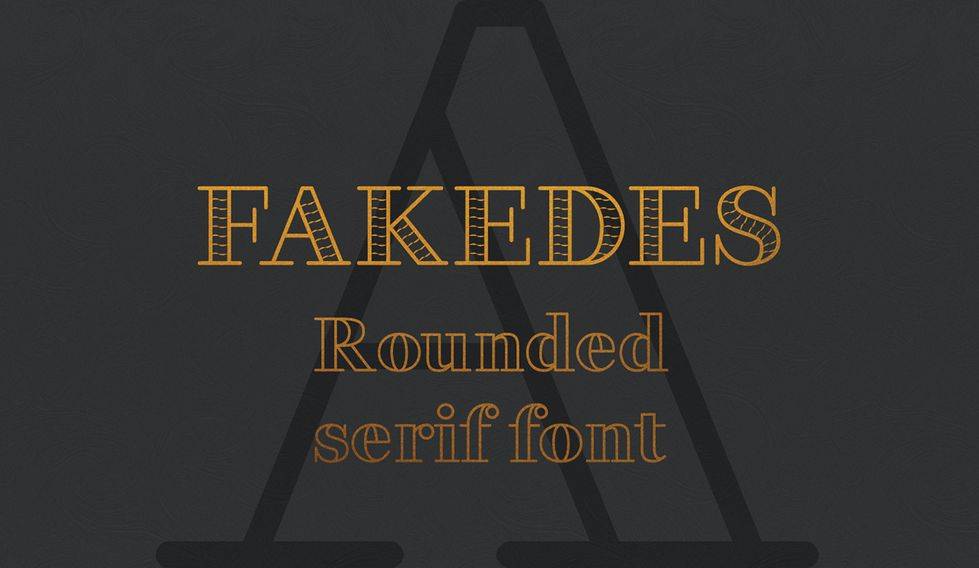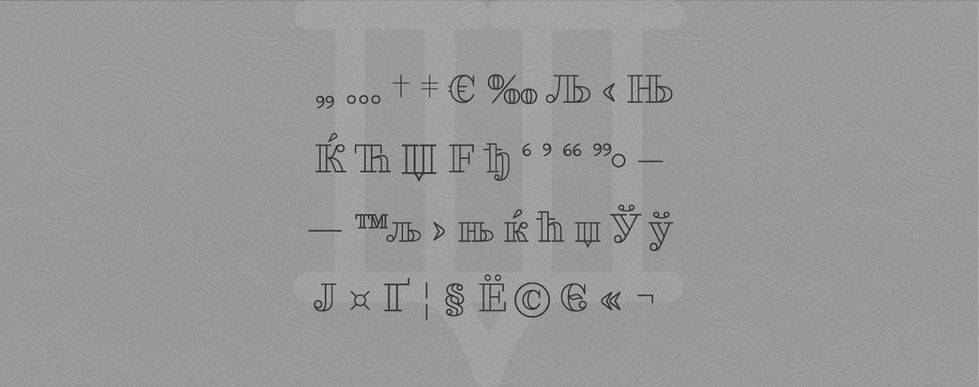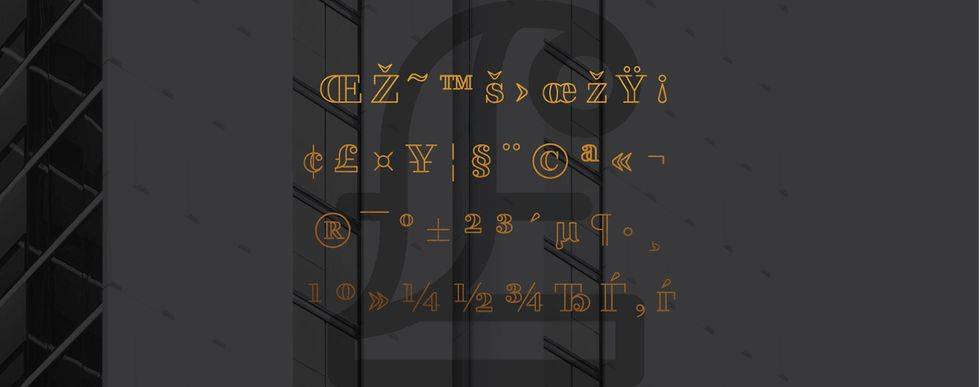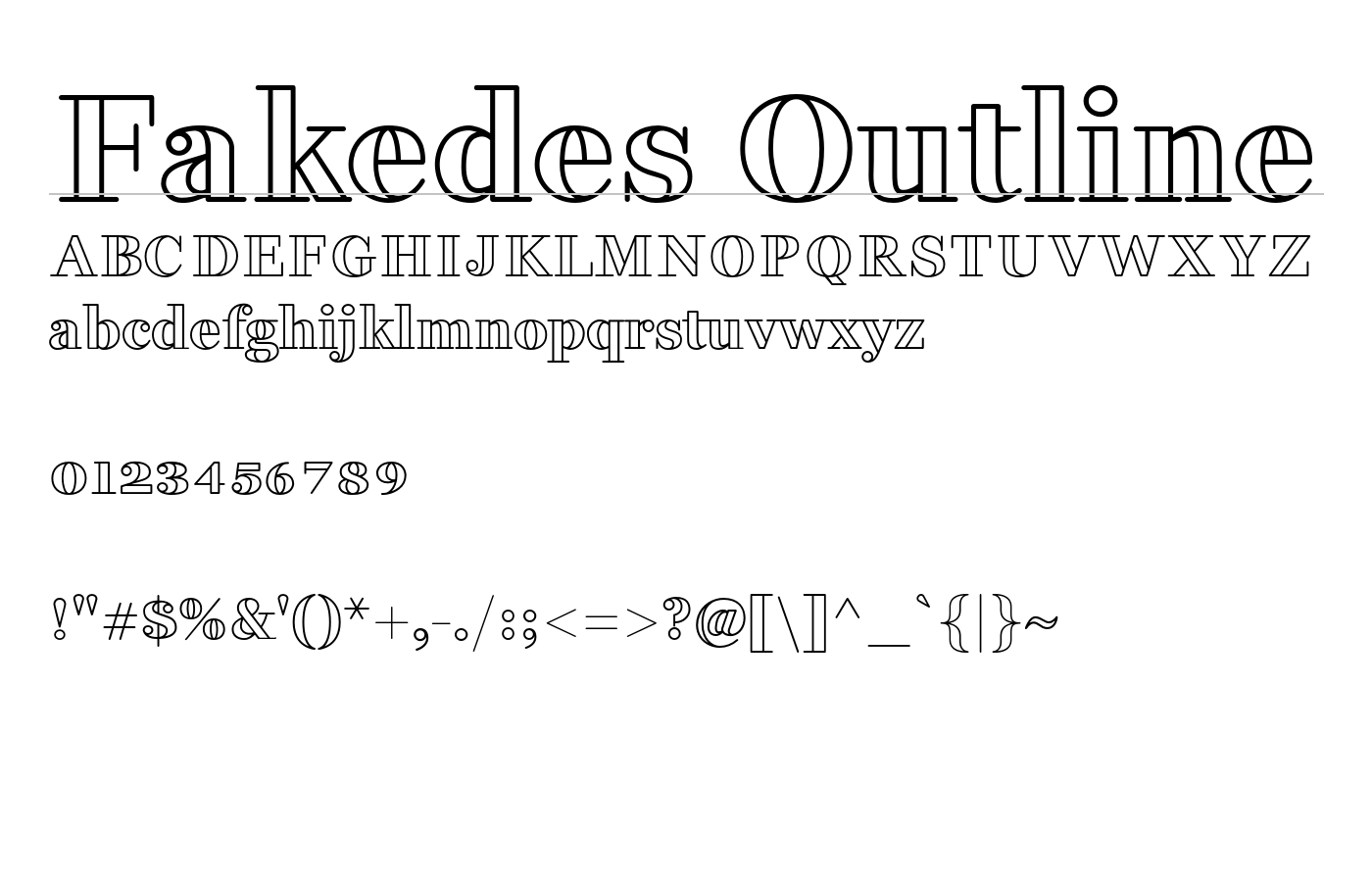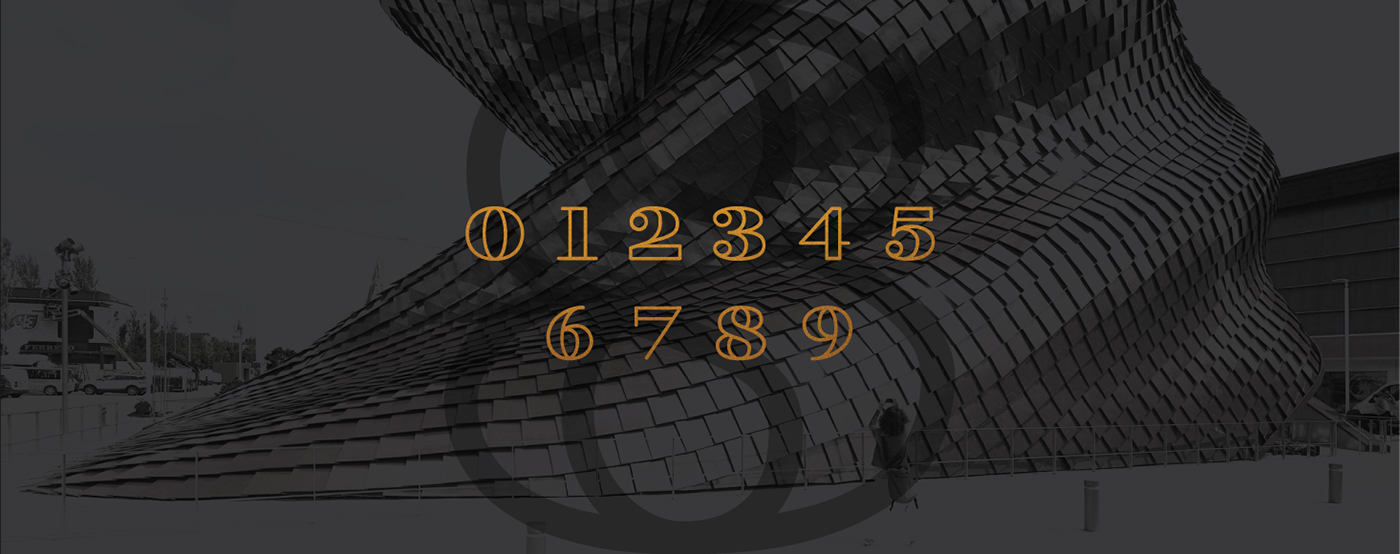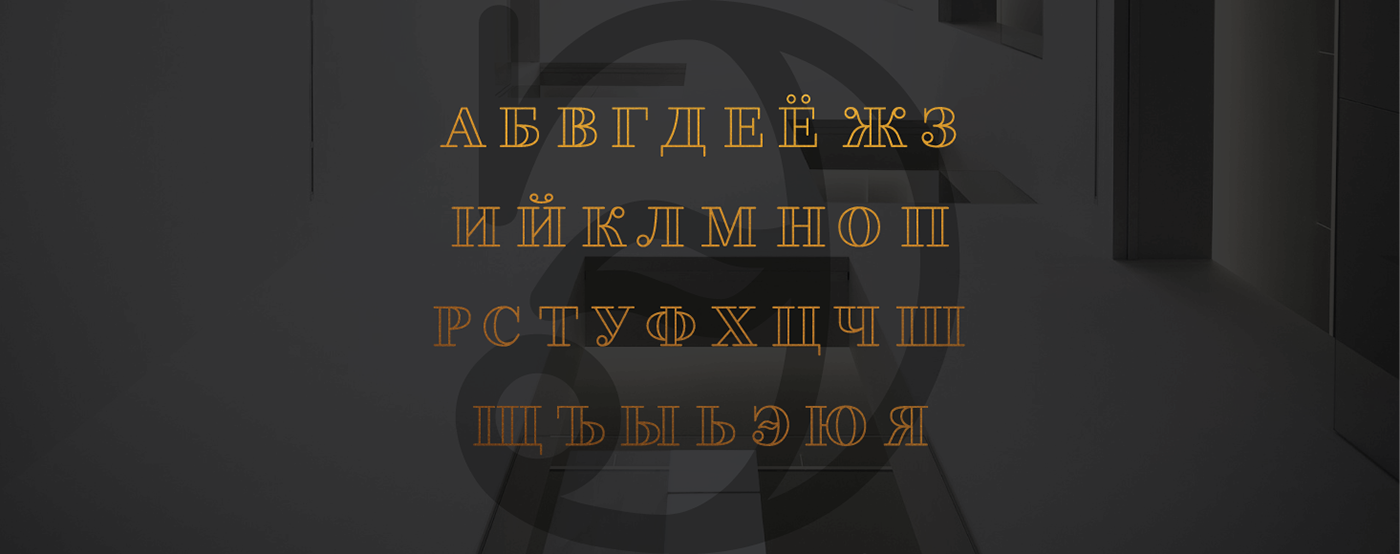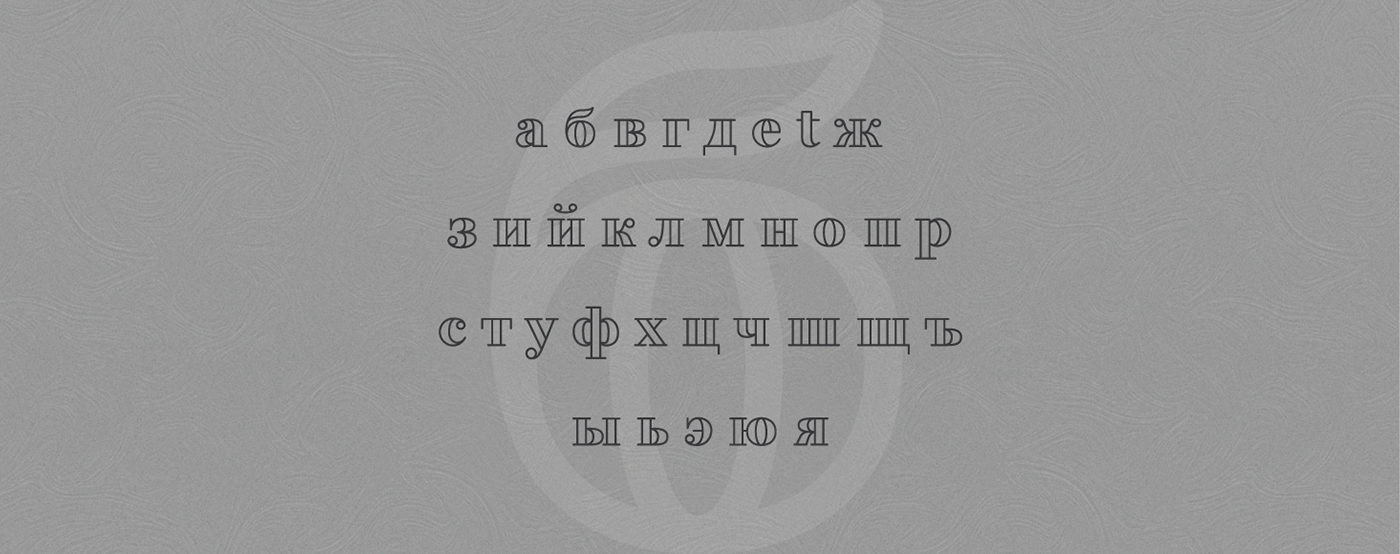
Fakedes Outline is a delicate, modern serif font with elegant high contrast strokes and thin, bracketed serifs that create a refined, airy look. Its tall x-height and unique double-story letterforms give it a sophisticated and stylish personality, making it ideal for upscale branding, editorial headings, and creative packaging where a light, decorative touch is desired. This font's outline style adds a contemporary twist, perfect for designs that need a blend of classic charm and modern flair.
Fakedes
About Fakedes
| Font family | Fakedes |
| Languages supported | Latin, Greek, Cyrillic, Symbols |
| Release date | 2015-03-30 |
| Designer | Cyril Mikhailov |